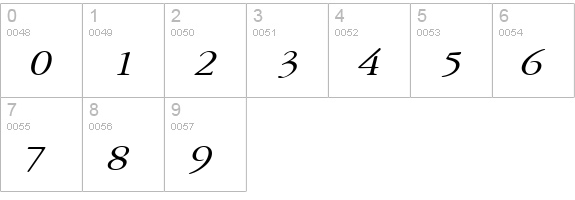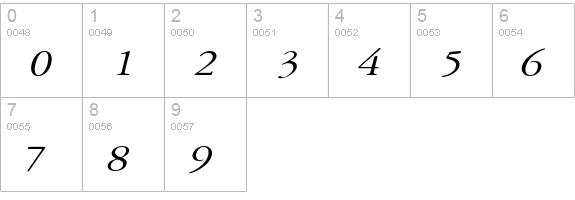
Amery Wide Italic Font Details
Amery Wide Italic is a distinctive, extended-width, italic variant in the Amery typeface family \xE2\x80\x94 well suited to design and typography projects.
Amery Wide Italic is a sleek and modern font that exudes elegance and sophistication. Its gracefully slanted italics add a touch of flair to any design project, making it perfect for creating eye-catching headlines, invitations, and logos. The wide letter spacing gives the text a sense of openness and clarity, while the italicized style adds a sense of movement and dynamism. This versatile font is ideal for a variety of design applications, from branding and advertising to editorial and web design. Whether you're looking to add a touch of sophistication to your project or create a bold statement, Amery Wide Italic is sure to impress. Best of all, Amery Wide Italic is available for free download at FontsMarket.com, making it accessible to designers of all levels. Don't miss out on this opportunity to elevate your designs with this stylish and contemporary font.